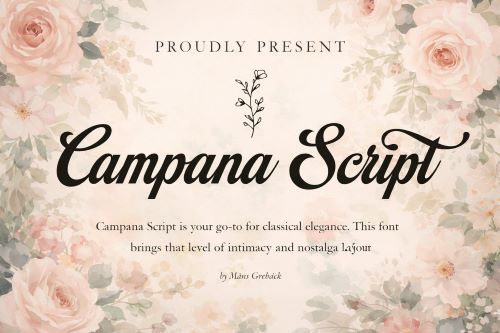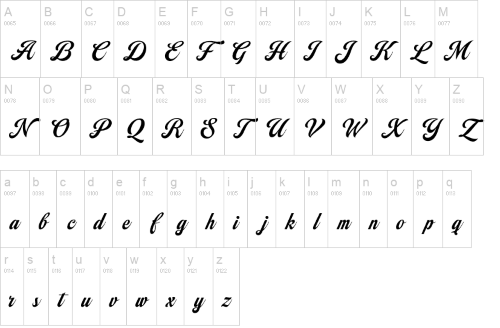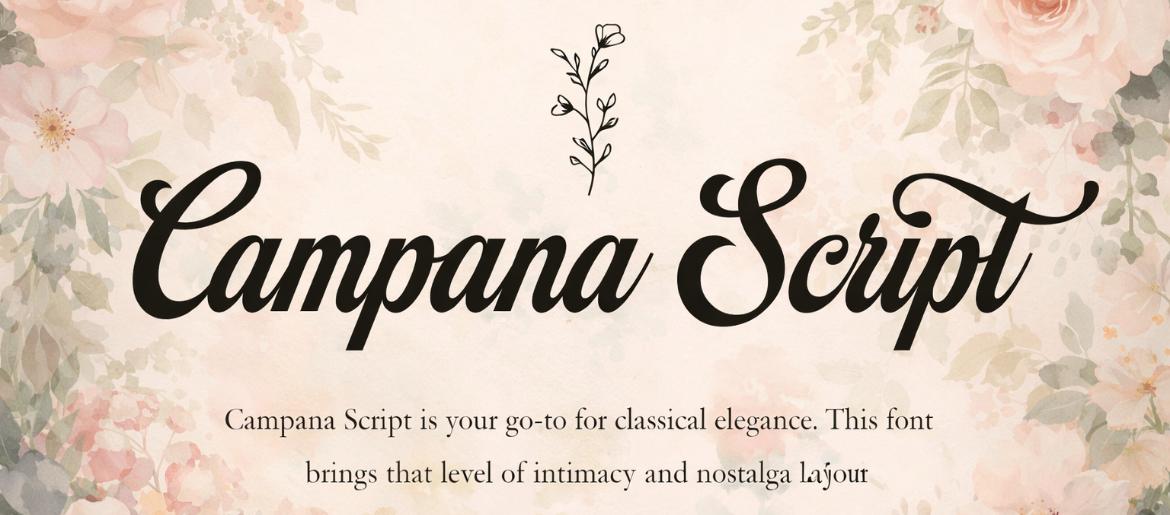
Campana Script Font
Campana Script Font is an elegant, flowing script typeface with graceful curves and a refined handwritten style. Its smooth strokes and stylish flourishes make it perfect for logos, wedding invitations, branding, quotes, and luxury designs. Campana Script adds sophistication, romance, and a timeless handwritten charm to any project.
➤ Font Name: Campana Script
➤ Designer: Måns Grebäck
➤ Style: Script